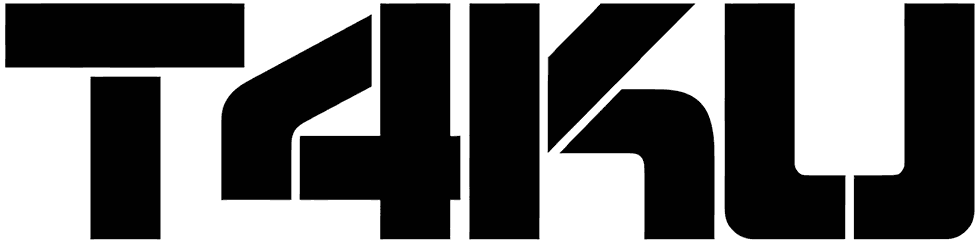
Taku Font
Out of all the stencil fonts you’ve seen so far, Taku is something else entirely. It’s obviously geometric and shaped like squares, but it’s the paradoxical combination of round stretches and sharp edges in its structure that really gets you hooked.
At this point, with all the intrigue Taku is offering, you’re probably not going to mind it being an all-caps font. After all, isn’t that just what you need in your apparel designs, sports IG banners, army video games, etc?